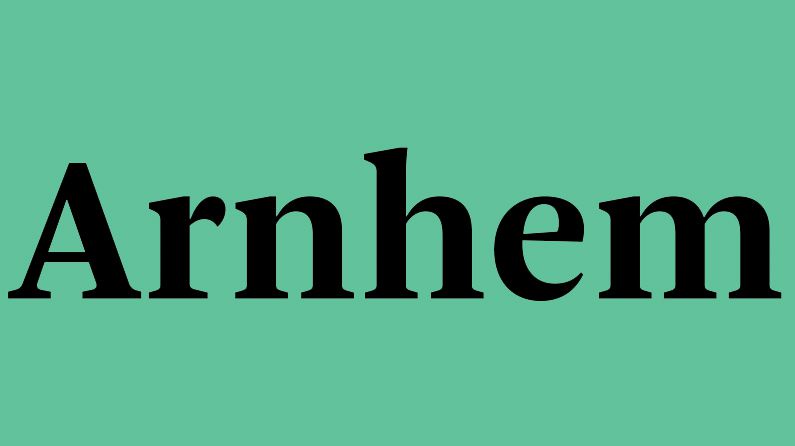
Arnhem Font
Arnhem Font is perfect for scholarly publishing houses, academic journal layouts, historical museum exhibitions, literary magazine designs, university press materials, intellectual book covers, cultural institution branding, and prestigious editorial applications. This distinguished typeface excels in applications where academic gravitas and scholarly elegance are essential for creating authoritative and refined brand experiences that honor intellectual tradition.
What makes Arnhem Font truly exciting is its masterful embodiment of Dutch typographic heritage and scholarly sophistication that captures the essence of European intellectual tradition and academic excellence. The font features carefully crafted letterforms with classical proportions and scholarly character details that mirror the precision of academic research and the refined sensibilities of Dutch design craftsmanship. Its intellectual personality and authoritative character create an immediate sense of credibility and academic rigor that resonates with audiences seeking serious scholarly content and educational excellence. The typeface's Dutch heritage and academic appeal make it perfect for brands wanting to convey scholarship, tradition, and connection to the centuries-old tradition of European learning and intellectual discourse.
The Arnhem Font family includes multiple weights from Regular to Bold, complemented by matching italic versions that enhance its scholarly versatility. The font offers comprehensive OpenType features including small capitals, old-style figures, scholarly ligatures, and extensive multilingual support for international academic applications. Additional stylistic elements and academic symbols provide designers with specialized tools for creating authentic scholarly brand systems and educational communications.